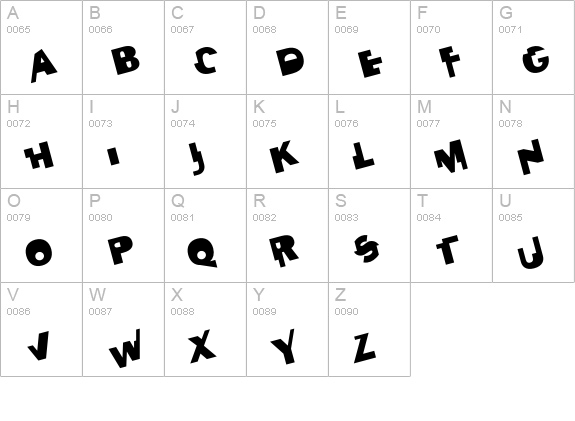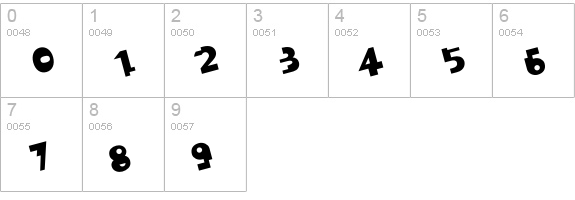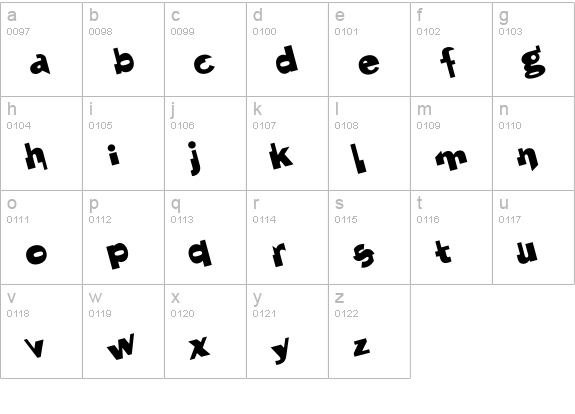
Janaki-BoldItalic Font Details
Janaki-BoldItalic is a stunningly elegant and eye-catching font that combines boldness with a touch of stylish flair. Its unique design and captivating curves make it a perfect choice for adding a touch of sophistication to any project. This font exudes confidence and sophistication, making it ideal for headlines, logos, branding, and any design that needs to make a bold statement. Whether you're designing a poster, a website, or a magazine layout, Janaki-BoldItalic will effortlessly elevate your design and leave a lasting impression on your audience. One of the best things about Janaki-BoldItalic is that it is freely available to download at FontsMarket.com. This means that you can easily access this stunning font and use it in your projects without worrying about any licensing restrictions. Whether you're a professional designer or a hobbyist, this font is a valuable addition to your font collection. Janaki-BoldItalic's versatility extends to a wide range of design styles, from modern and minimalistic to vintage and retro. Its bold and italicized characters create a harmonious balance, allowing you to experiment and create unique typographic compositions that stand out. The attention to detail in Janaki-BoldItalic is truly remarkable. Each letter is meticulously crafted, ensuring that every curve and line is perfectly balanced. The result is a font that is not only visually pleasing but also legible at any size. With its bold and italicized features, Janaki-BoldItalic adds a touch of elegance and sophistication to any design project. Whether you're creating a logo, a poster, or a website, this font will instantly elevate your design and leave a lasting impression on your audience. So why wait? Download Janaki-BoldItalic for free at FontsMarket.com and unlock the true potential of your design projects. With this stunning font at your fingertips, the possibilities are endless. Embrace the elegance and versatility of Janaki-BoldItalic and take your design to new heights.